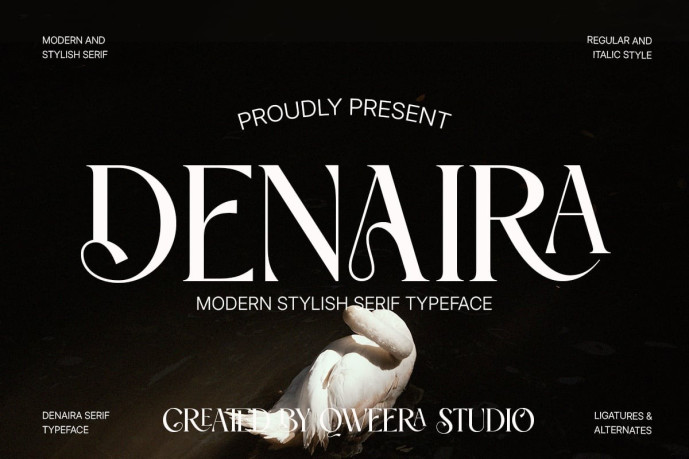
Denaira – Modern Elegant Stylish Serif Font
Denaira is a modern stylish serif font crafted for luxury branding, fashion logos, editorial layouts, premium packaging, and refined visual identity. With its bold contrast, clean serif structure, and expressive alternate details, Denaira brings a dramatic yet polished presence to modern design projects.
Its elegant display character works beautifully for magazine headlines, boutique logos, beauty campaigns, perfume labels, fashion packaging, product branding, social media visuals, and high-end presentation layouts. Denaira includes uppercase and lowercase characters, stylish alternates, ligatures, multilingual support, professional kerning, Regular and Italic styles, plus OTF, TTF,  formats for polished print and digital use.
Bring modern elegance, editorial confidence, and stylish serif sophistication into your next branding or packaging project with Denaira.
Modern stylish serif style
Complete uppercase and lowercase characters
Stylish alternates and ligatures
Multilingual character support
Professional kerning for polished typography
Regular and Italic font styles
Clean luxury look for fashion, beauty, and editorial branding